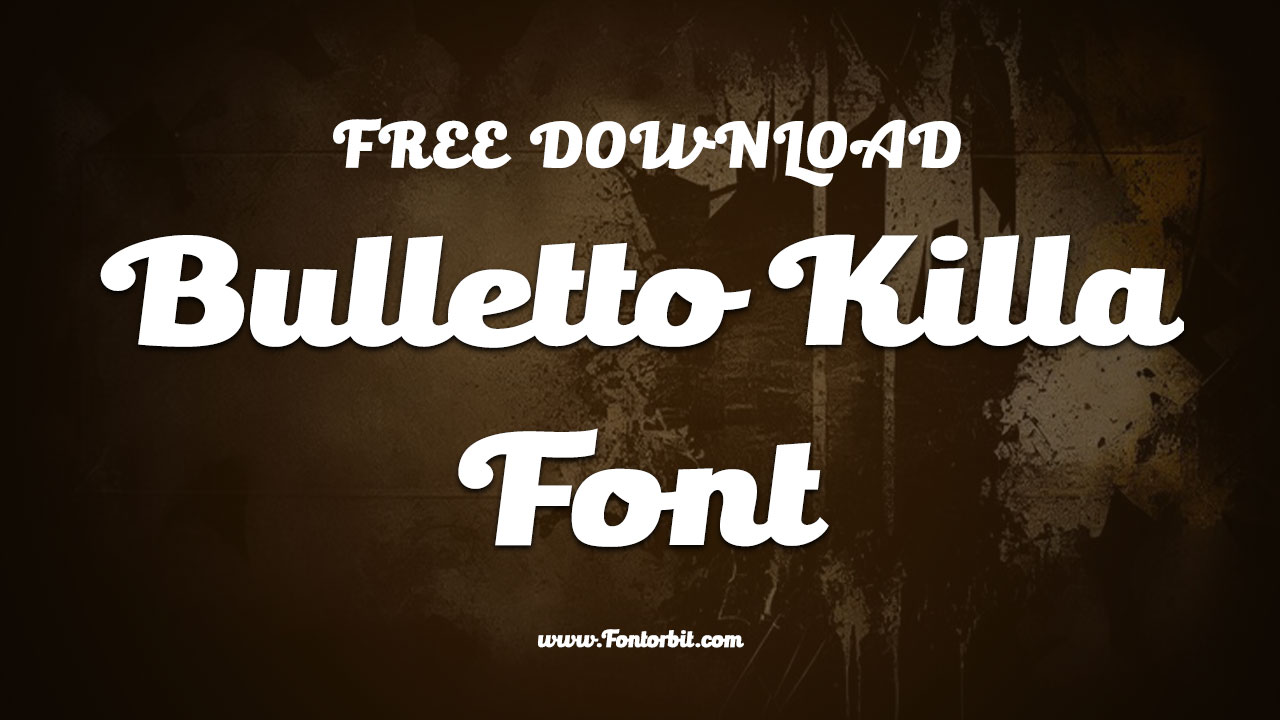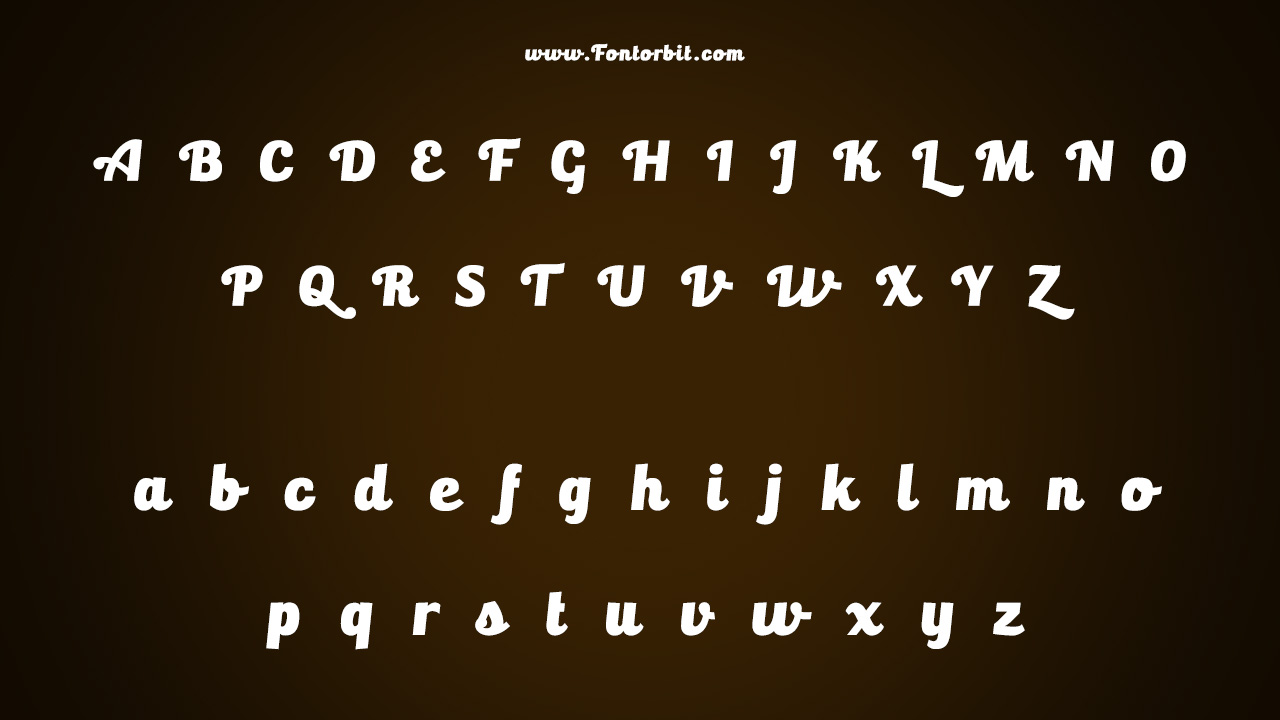
Bulletto Killa font is a dynamic and stylish script font designed by Zetafonts. Known for its bold and modern look, Bulletto Killa is perfect for a wide variety of design purposes, including logotypes, branding, headers, and more. Released as a free-for-personal-use font, designers widely appreciate it for its versatility and contemporary edge.
The Bulletto Killa Font Family Includes
This script font offers a wide variety of OpenType features to enhance its versatility. Bulletto Killa includes several weights and styles that cater to different design needs. While the exact glyph count may vary from other detailed script fonts, Bulletto Killa provides strong and legible letterforms combined with a unique flair. The font includes:
a. Bulletto Killa Regular
Notable Uses Of Bulletto Killa Font
The sharp, flowing lines of Bulletto Killa make it suitable for many design projects. It can add a modern, edgy touch to both digital and print works. Some of the common uses include:
- Logotypes
- Event Titles
- Packaging
- Headers for websites
- Advertisements
- Fashion items (t-shirts, apparel, etc.)
Bulletto Killa Font Found In Use
Due to its bold and engaging style, Bulletto Killa is often used in eye-catching branding efforts, particularly in the fashion and urban lifestyle sectors. When used in logos or advertisements, the font pairs well with clean, sans-serif typefaces, balancing its elaborate script with a contemporary feel.
Bulletto Killa is a modern, bold script font that brings energy and flair to any design. It’s perfect for designers looking for a versatile typeface that balances the aesthetics of script and display fonts. Whether used for branding, posters, or website headers, Bulletto Killa stands out for its strong, contemporary style and readability.
1.How To Adjust Bulletto Killa Font For Branding Purposes?
When using Bulletto Killa for logos or branding, adjust the kerning (letter spacing) to create a balanced look, especially in large sizes.
2.Is Bulletto Killa Suitable For Headlines?
Yes, Bulletto Killa works well for headlines due to its bold and engaging design. It grabs attention without sacrificing legibility.
3.What Are The Design Trends Associated With Bulletto Killa Font?
Bulletto Killa aligns with urban, modern design trends. It is often used in streetwear branding, edgy marketing campaigns, and fashion design.
4.Can Bulletto Killa Be Used For Formal Event Invitations?
While Bulletto Killa has a bold and playful character, it can be paired with more formal fonts to create a unique and balanced look for event invitations, especially if you’re aiming for a modern, trendy style.